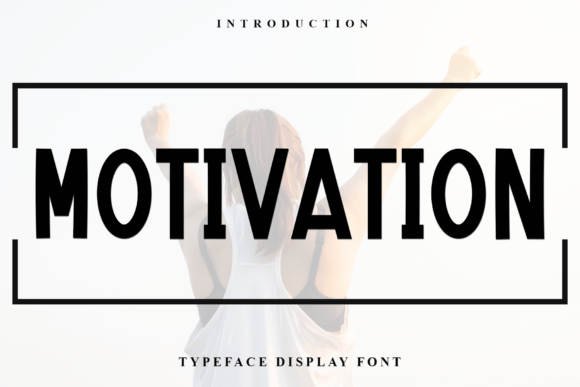
Unlock Your Creative Potential with Motivation Font: A Unique and Versatile Typeface
When it comes to creating visually stunning designs, the right font can make all the difference. Introducing Motivation Font, a beautiful and eye-catching typeface that is designed to inspire and elevate your creative projects. With its soft, unique touch and distinctive strokes, Motivation Font is the perfect addition to any designer’s toolkit.
What Makes Motivation Font Special?
- Unique and Distinctive Strokes: Motivation Font boasts a special character that sets it apart from other fonts. Its distinctive strokes give it a touch of elegance and sophistication, making it perfect for a wide range of design projects.
- Soft and Inviting: The font’s soft and rounded edges create a warm and inviting feel, making it ideal for designs that require a personal touch.
- Versatile and Meaningful: With its unique character, Motivation Font is not just a font, but a design element that can add depth and meaning to your creations.
Endless Possibilities with Motivation Font
Motivation Font is perfect for a wide range of design projects, including:
- Design Projects: Use Motivation Font to create stunning posters, flyers, brochures, and other marketing materials that require a touch of elegance and sophistication.
- Crafts and DIY Projects: Add a personal touch to your crafts and DIY projects with Motivation Font, perfect for creating handmade cards, gift tags, and other paper crafts.
- Creative Works: Use Motivation Font to create visually stunning artwork, illustrations, and other creative projects that require a unique and distinctive font.
Boost Your Designs with Motivation Font
By using Motivation Font in your designs, you can:
- Enhance Your Designs: Add a touch of elegance and sophistication to your designs with Motivation Font’s unique and distinctive strokes.
- Appeal to a Wide Audience: With its soft and inviting feel, Motivation Font is perfect for designs that require a personal touch, making it appealing to a wide range of audiences.
- Increase Creativity: Motivation Font’s versatility and uniqueness make it the perfect tool to spark your creativity and take your designs to the next level.
Inspiring Creativity Across Artistic Fields
Motivation Font is perfect for designers and artists across various artistic and creative fields, including:
- Graphic Design: Use Motivation Font to create stunning graphic designs, including logos, icons, and other visual elements.
- Illustration: Add a touch of elegance and sophistication to your illustrations with Motivation Font’s unique and distinctive strokes.
- Digital Art: Use Motivation Font to create visually stunning digital art, including artwork, animations, and other creative projects.
Ideal for a Wide Range of Products
Motivation Font is perfect for designing a wide range of products, including:
- Merchandise: Use Motivation Font to create stunning merchandise, including t-shirts, mugs, and other products.
- Packaging: Add a touch of elegance and sophistication to your packaging designs with Motivation Font.
- Advertising Materials: Use Motivation Font to create visually stunning advertising materials, including posters, flyers, and brochures.
Tips for Using Motivation Font Effectively
To get the most out of Motivation Font, follow these typographic tips:
- Pair with Other Fonts: Experiment with pairing Motivation Font with other fonts to create a unique and visually stunning design.
- Adjust Font Size: Adjust the font size to create visual hierarchy and emphasize important design elements.
- Use Color Effectively: Use color effectively to enhance your design and make Motivation Font stand out.
Motivation Font is a unique and versatile typeface that is perfect for designers and artists across various artistic and creative fields. With its soft, unique touch and distinctive strokes, Motivation Font is the perfect addition to any designer’s toolkit. Download Motivation Font today and take your designs to the next level!